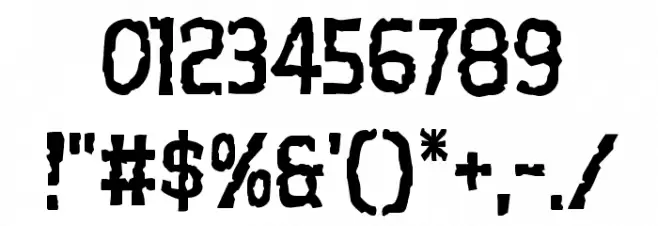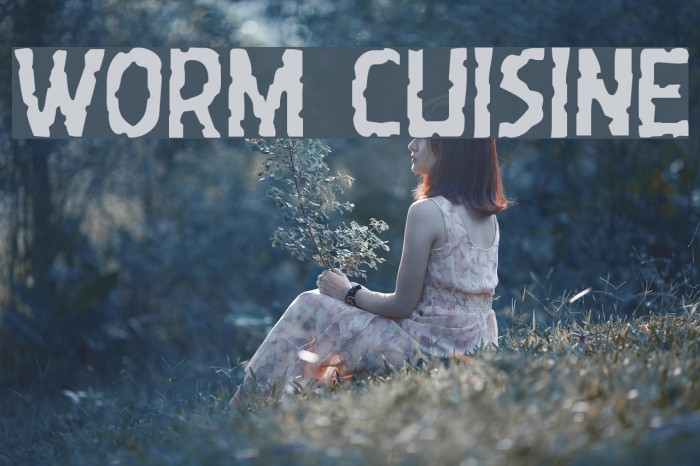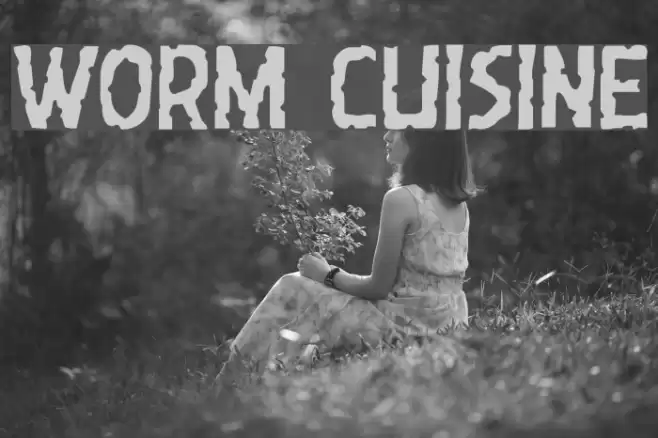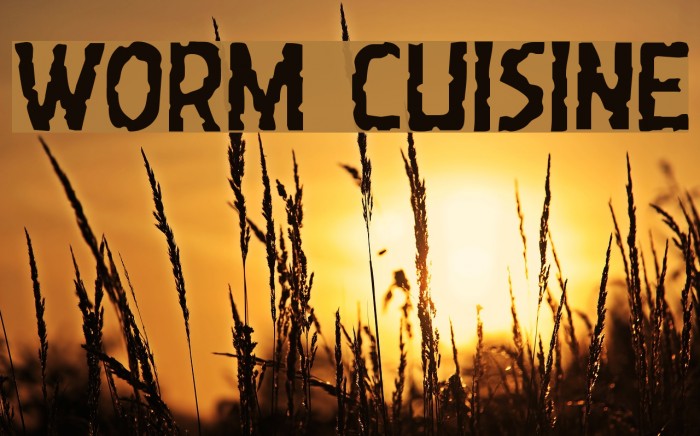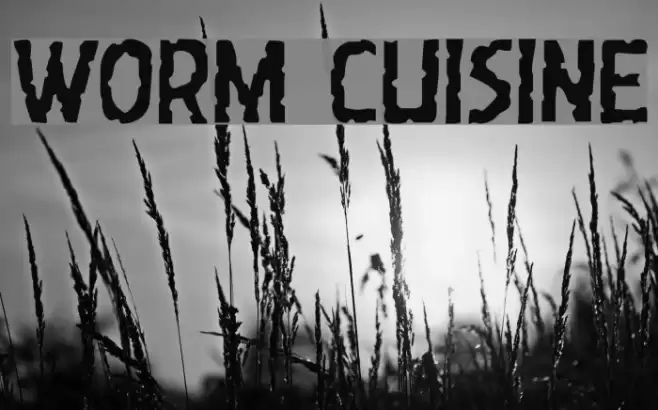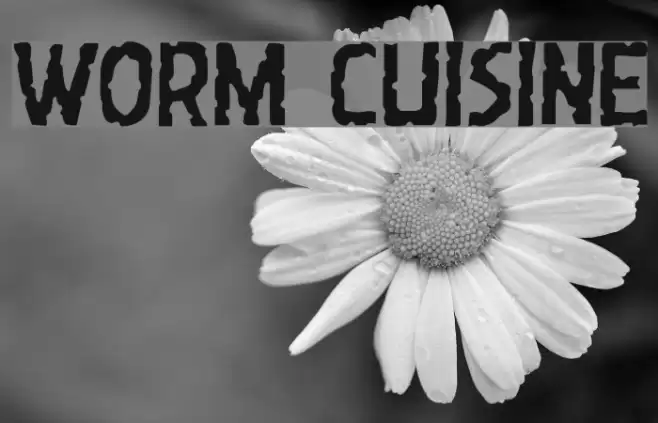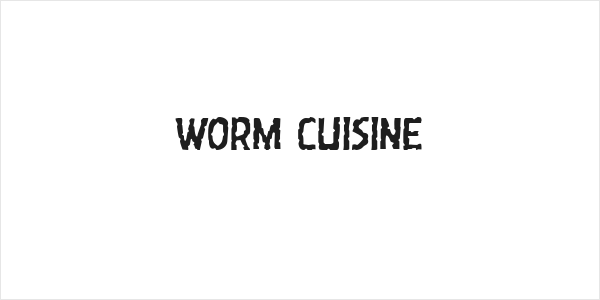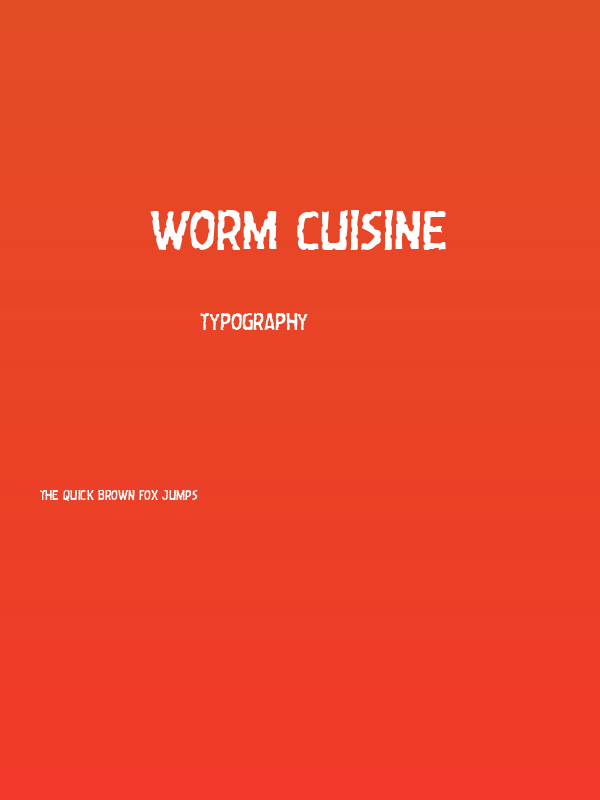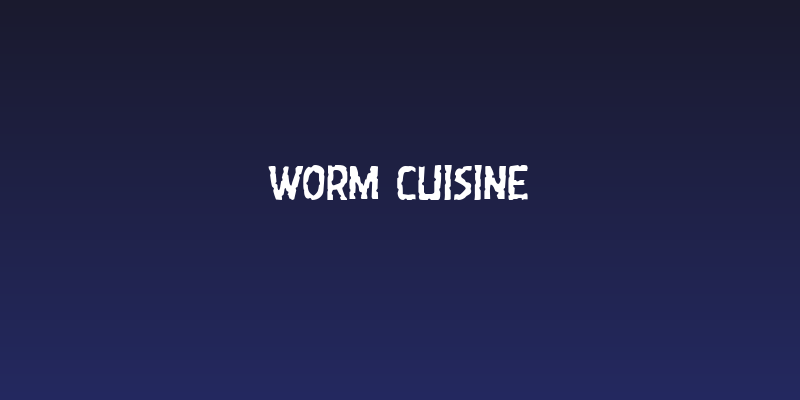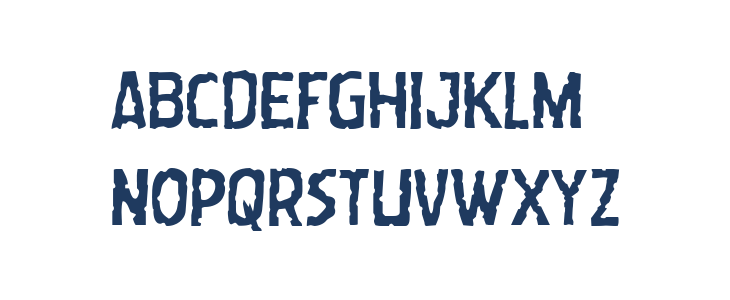
Worm Cuisine Font
Worm Cuisine Description
This font features a rugged, textured appearance that mimics the look of eroded or decayed surfaces. The characters have an irregular, hand-drawn quality, with jagged edges and varying thicknesses that give it a dynamic and organic feel. The uppercase and lowercase letters maintain a consistent style, while the numbers and special characters integrate seamlessly with the overall design. This font's unique aesthetic makes it stand out, providing a bold and distinctive look that is both eye-catching and memorable.
| Proposed Projects | Ideal for horror-themed posters, edgy branding, album covers, or any project requiring a bold, unconventional typeface. |